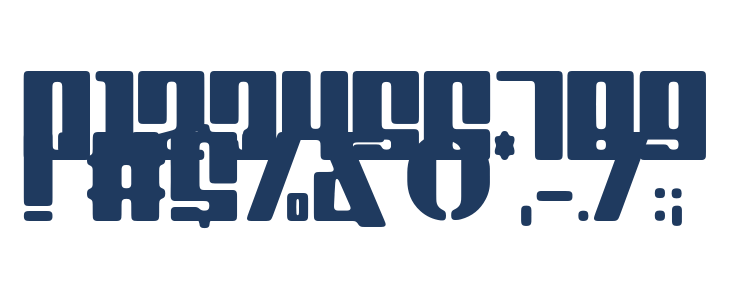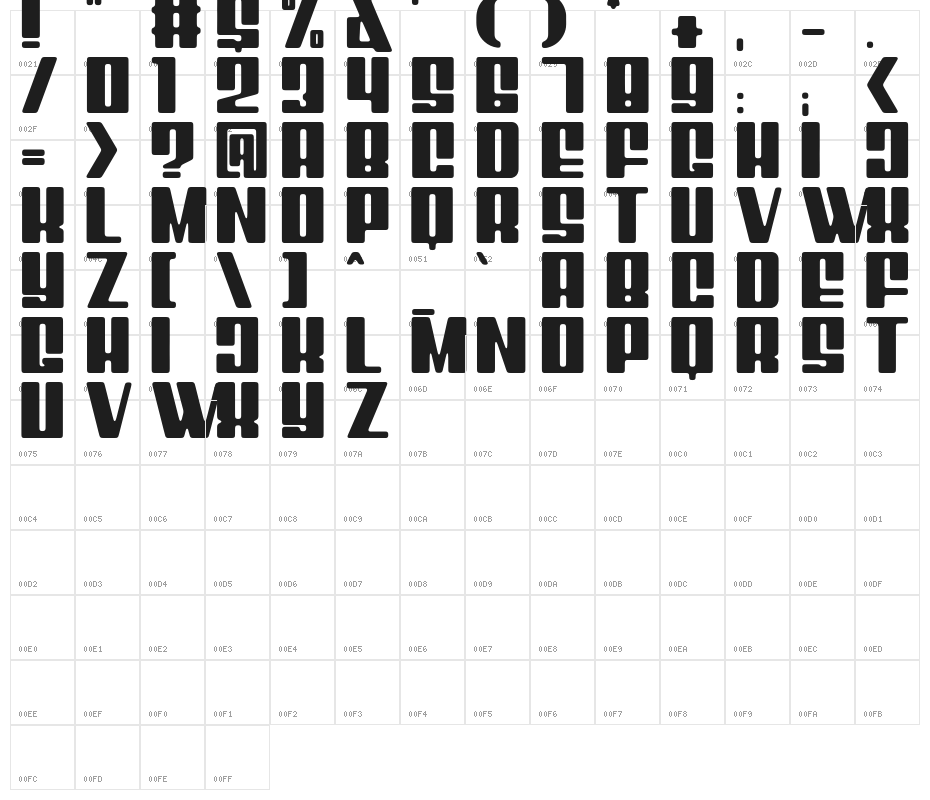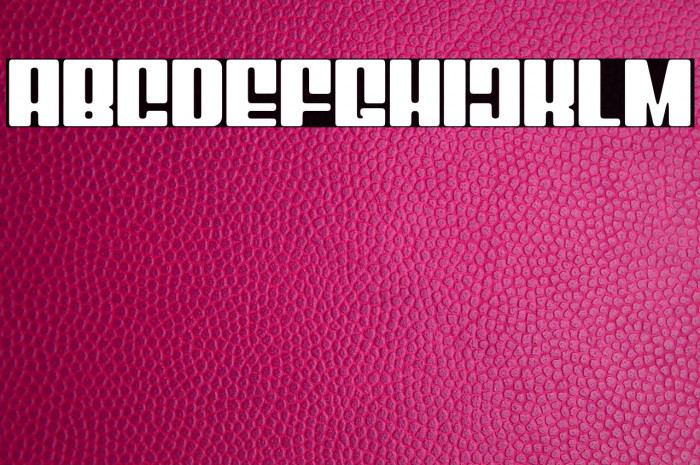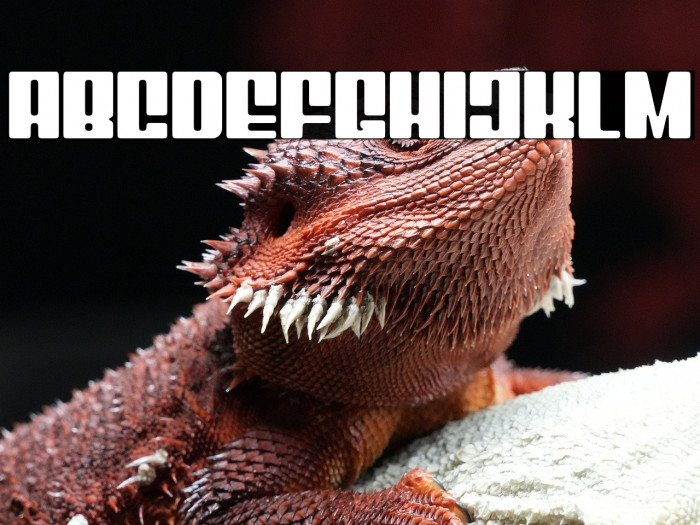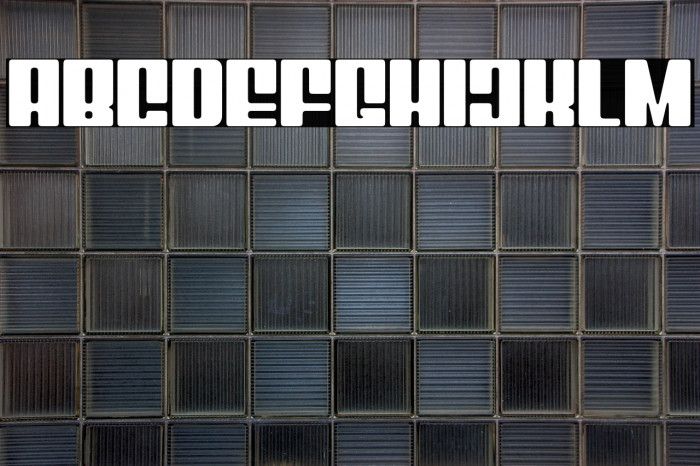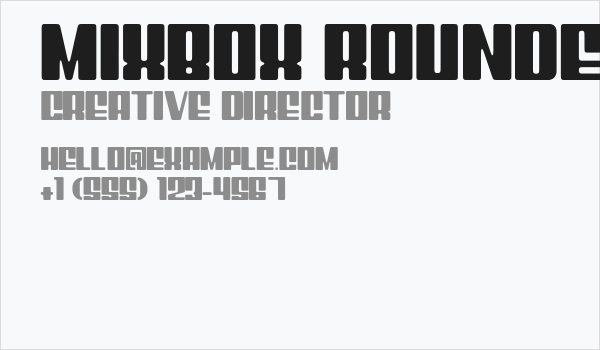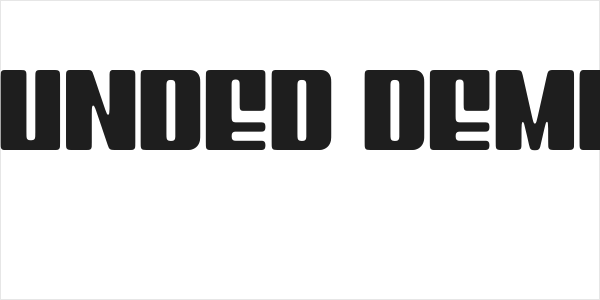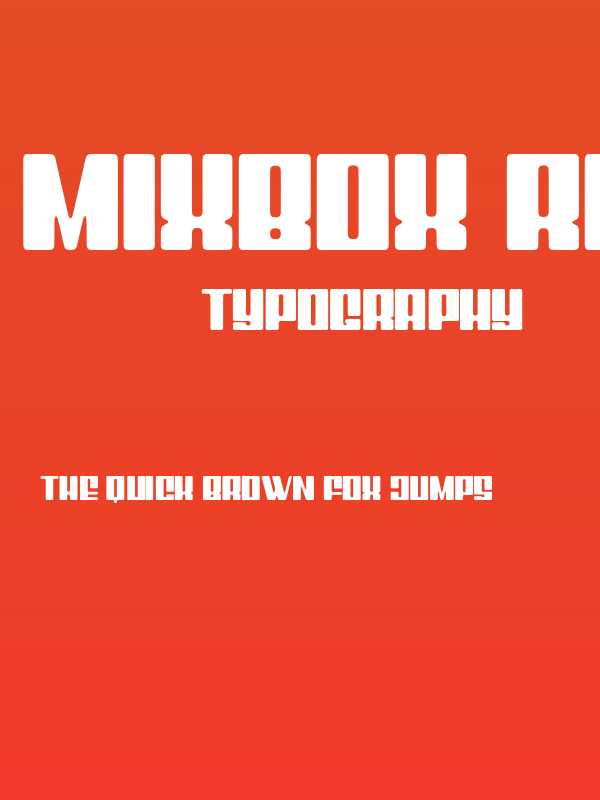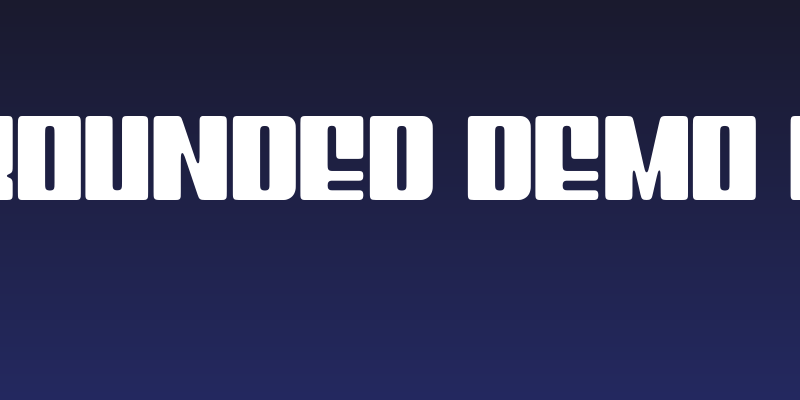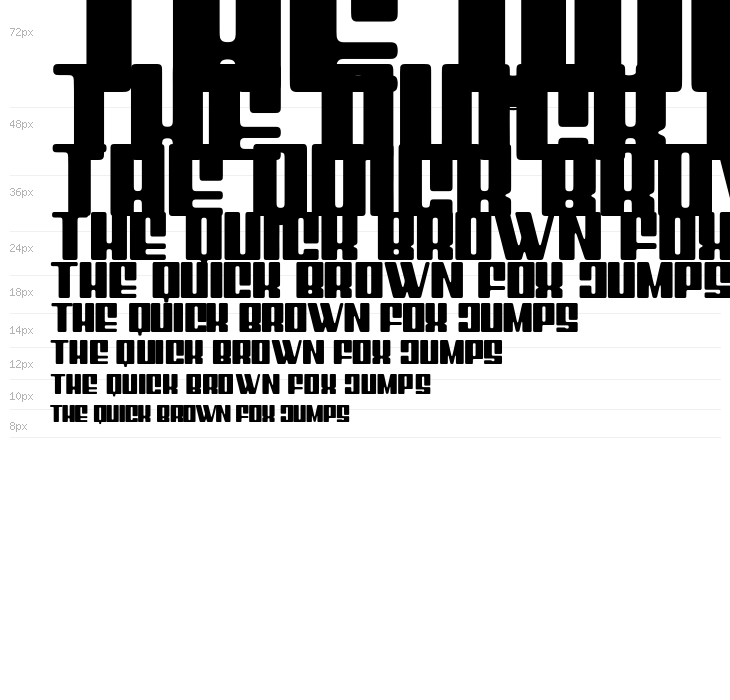
Mixbox Rounded Demo Rounded Font
Mixbox Rounded Demo Rounded Description
This font features a bold, rounded style with a modern and geometric appearance. Each character is designed with a consistent thickness, creating a uniform and cohesive look. The rounded edges soften the overall feel, making it approachable yet impactful. The uppercase and lowercase letters maintain a similar width, contributing to a balanced aesthetic. The numerals and special characters are crafted with the same attention to detail, ensuring readability and style consistency across all elements. This font is ideal for projects that require a strong visual presence while maintaining a friendly tone.